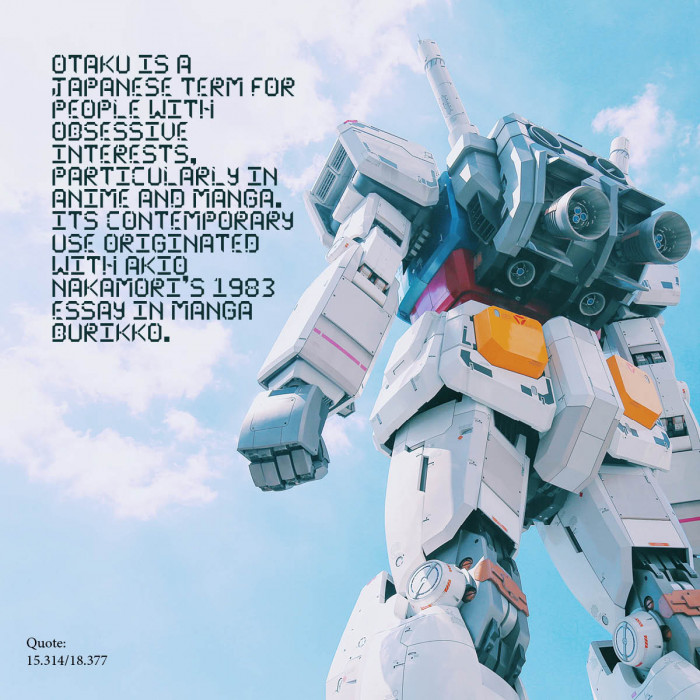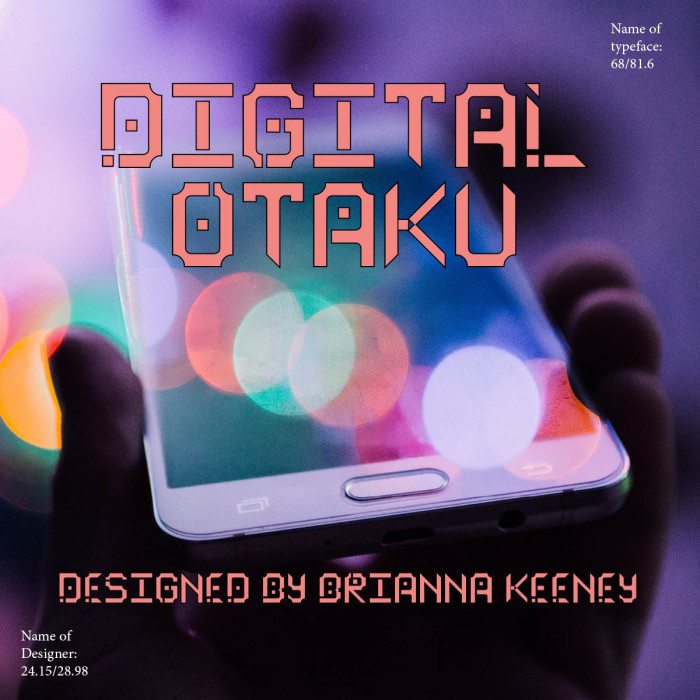
• I got this inspiration by the digital typeface used in videogames. I tend playing a lot of Japanese games so I called it Digital Otaku. If you look at the S it kind of looks like a pipe like the pipes in those Mario games made by Nintendo which is in Japan. Hope you enjoy my typeface!